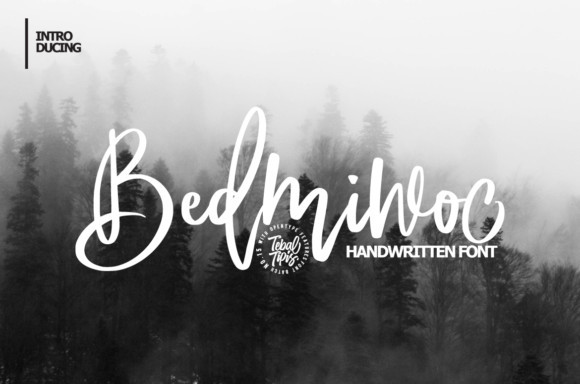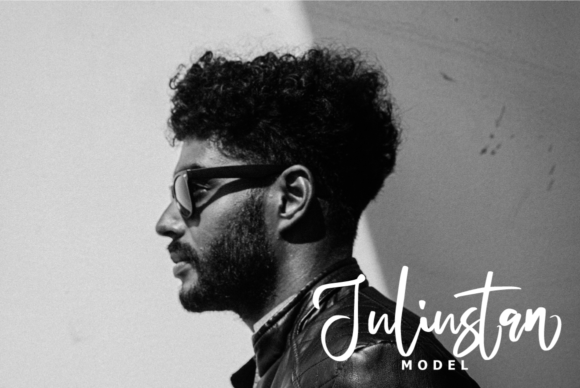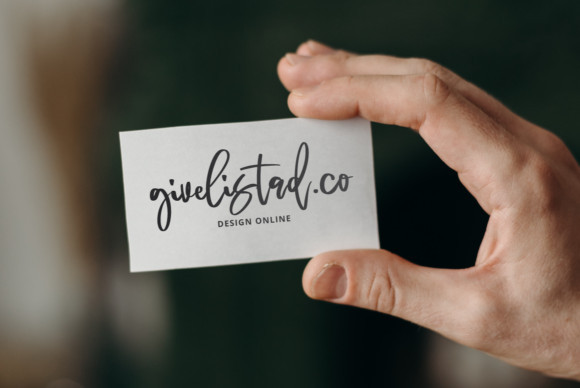
Bedmiwoc Font
Bedmiwoc is a cursive and fashionable script font. It has a classy, elegant and modern look that can be used for logos, branding, invitations, stationery, wedding designs, social media posts, and much more!